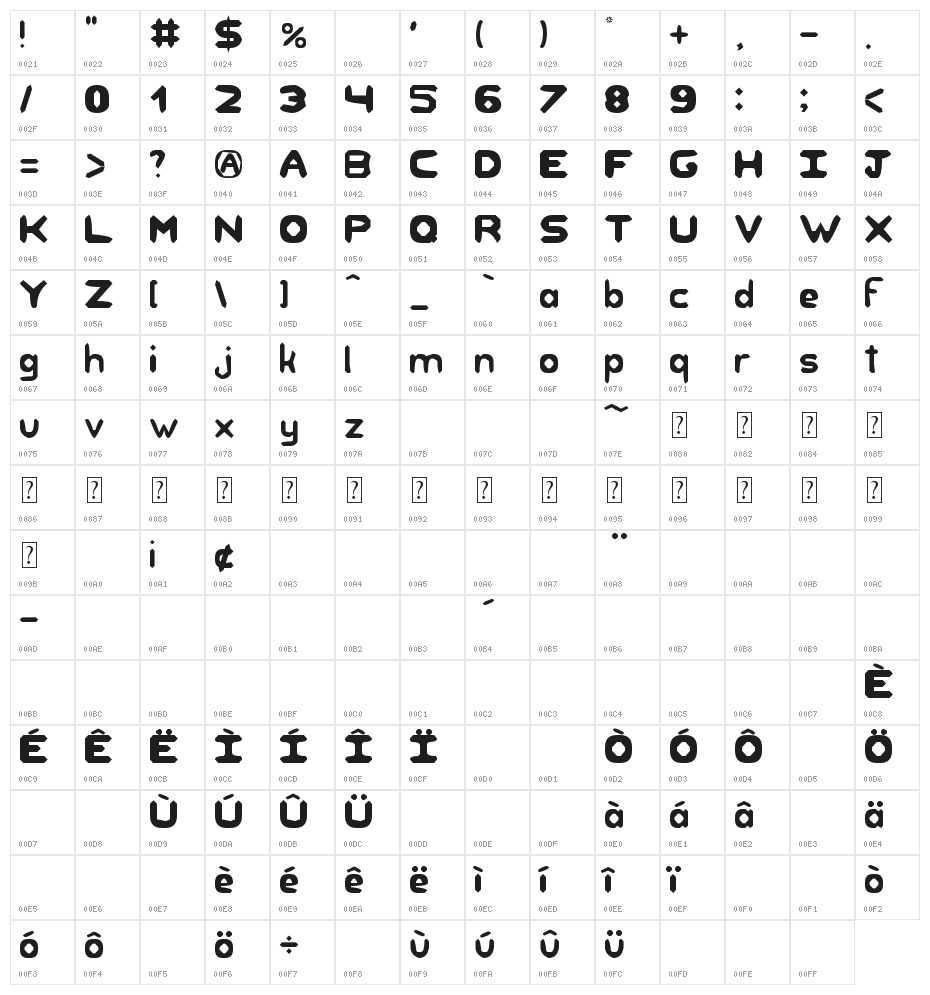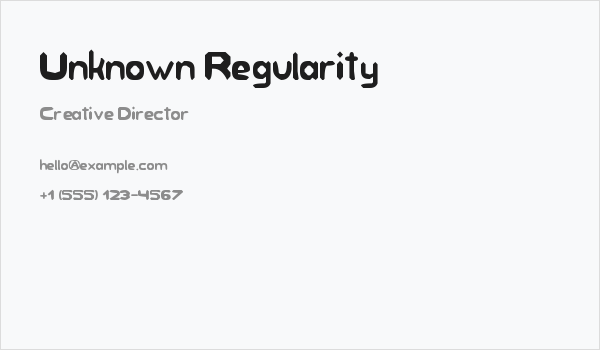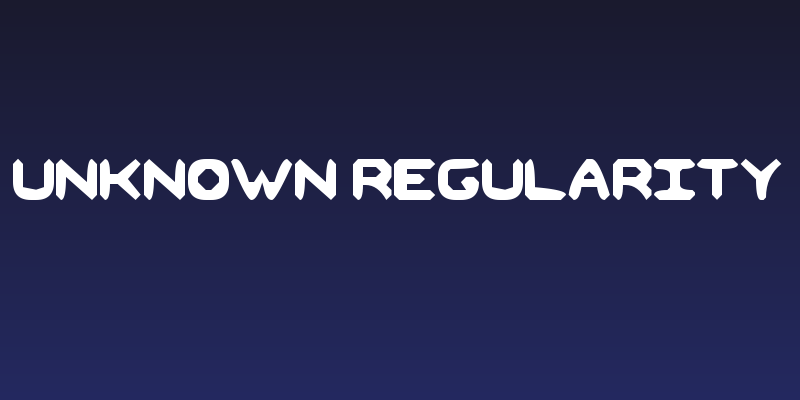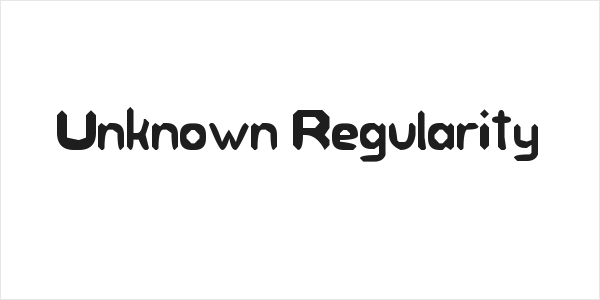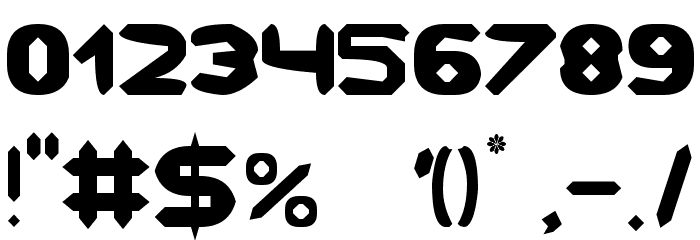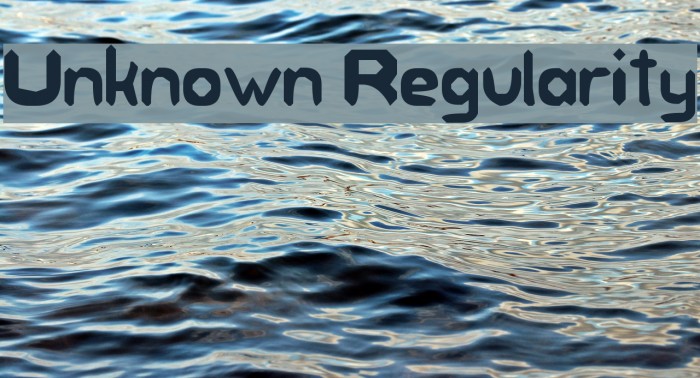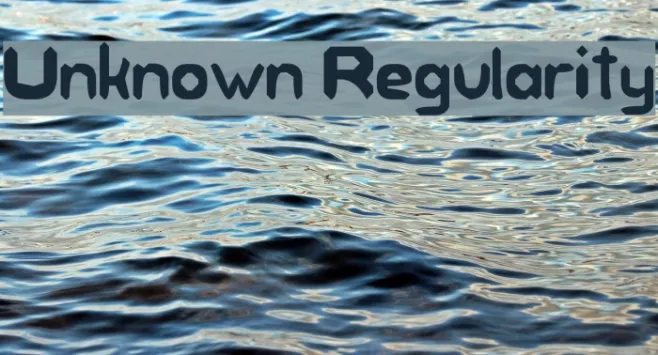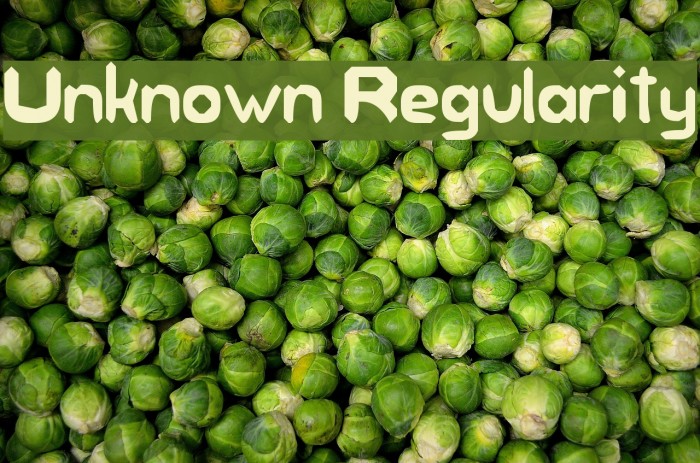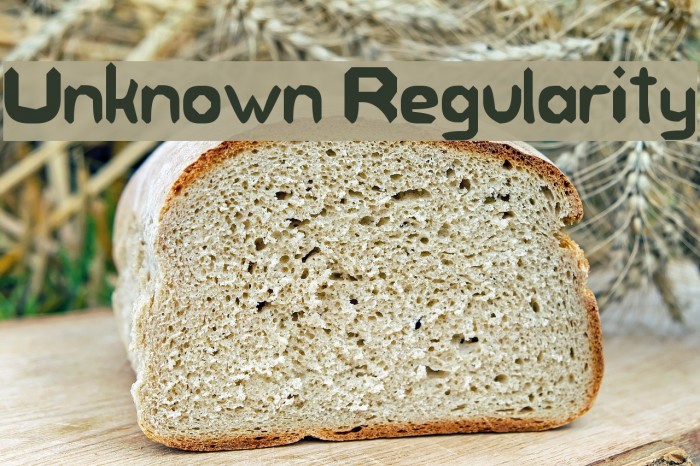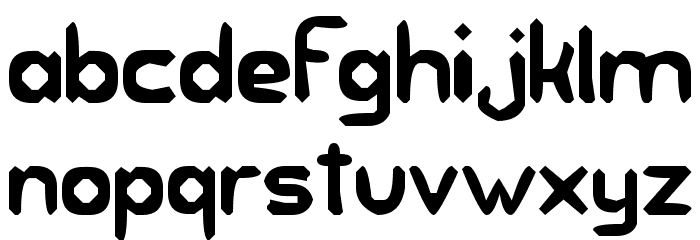
Unknown Regularity Font
Unknown Regularity Description
This font features a bold and playful design with a unique, irregular style. The characters have a hand-drawn appearance, with uneven strokes and a slightly distorted form that adds a whimsical touch. The uppercase and lowercase letters maintain a consistent style, with rounded edges and a chunky feel. Numbers and special characters follow the same playful aesthetic, making the font suitable for creative and informal projects. Its distinctiveness makes it stand out, offering a fun and engaging visual experience.
| Proposed Projects | Ideal for children's books, comic strips, playful branding, and creative posters. |